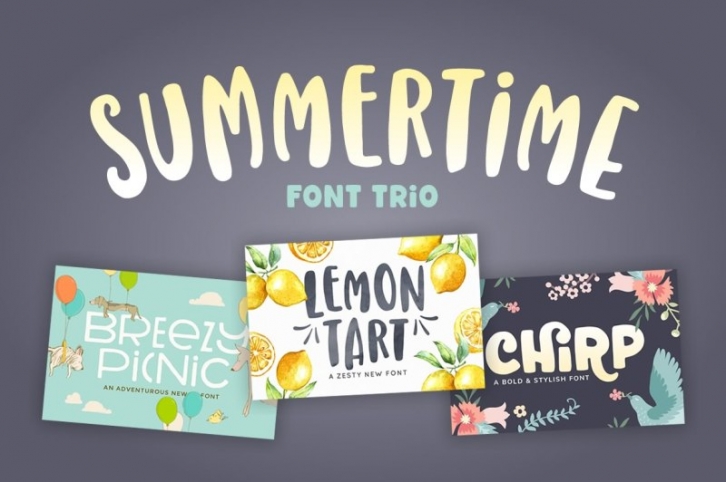
Introducing the Summertime Font Trio! Three great fonts that work great together. Perfect for baby shower and birthday invitations, neighborhood party flyers, family reunion e-vites, even yard sale signs! The font trio includes Lemon Tart, Chirp, and Breezy Picnic. English language only.